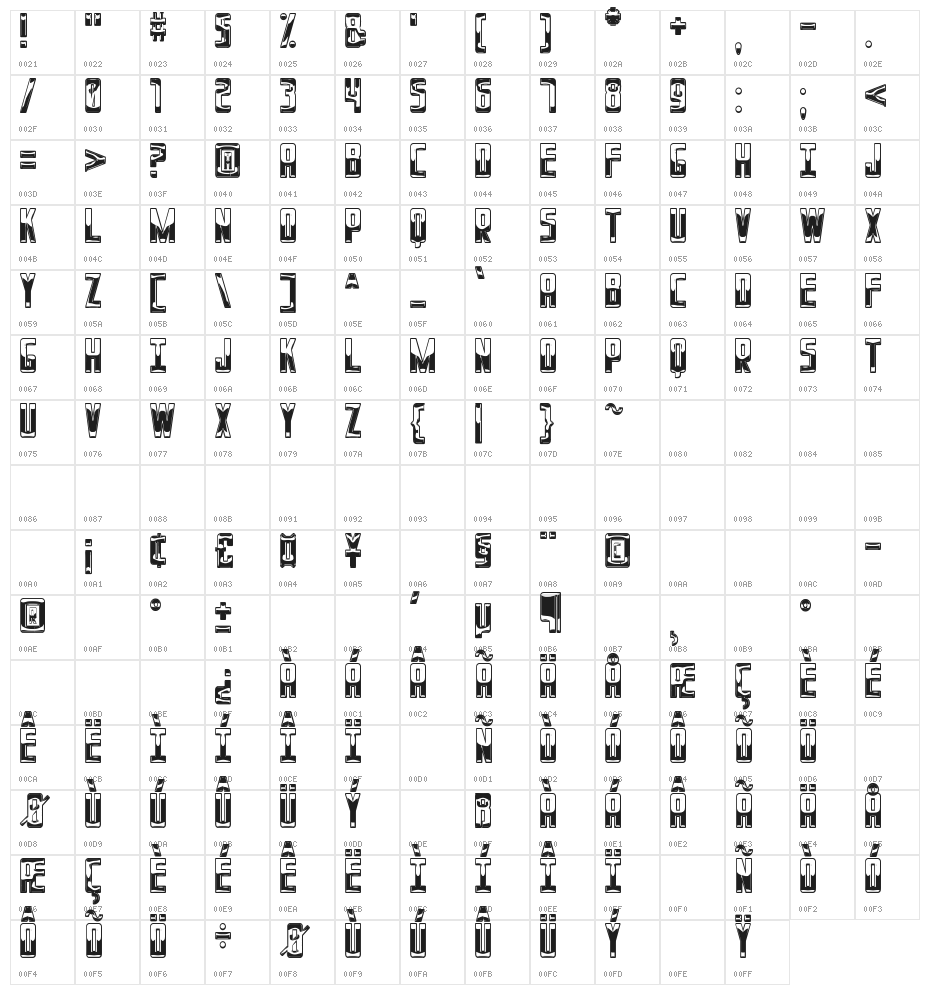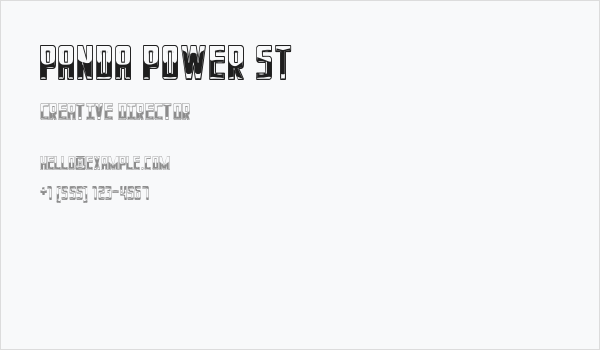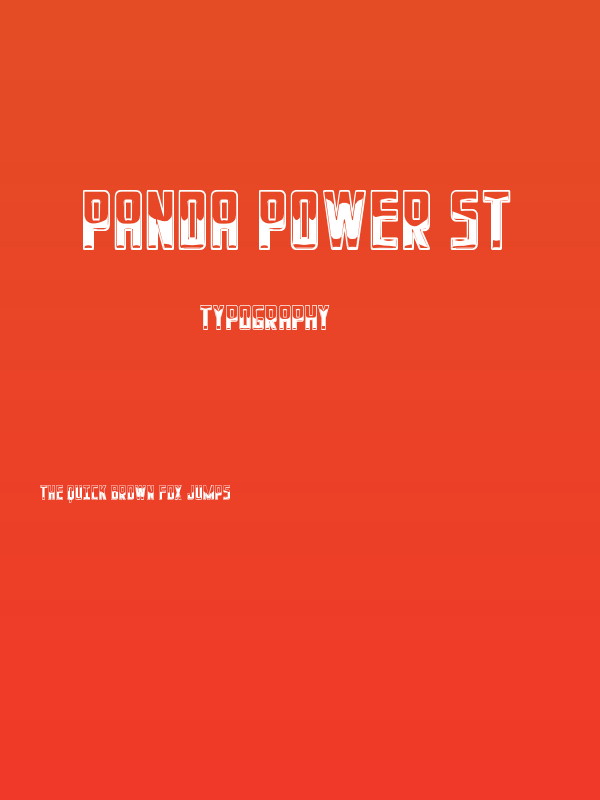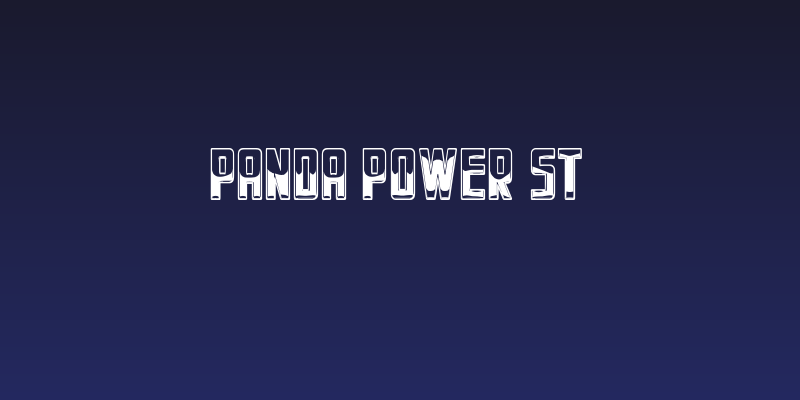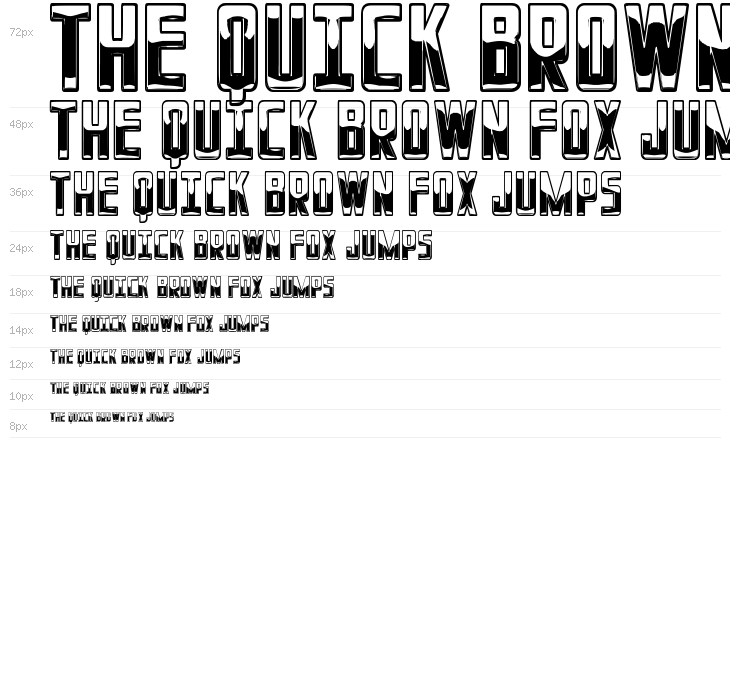
Panda Power St Font
Panda Power St Description
This font features a bold, three-dimensional style with a strong presence. Each character is designed with a shadow effect that gives a sense of depth and dynamism. The uppercase and lowercase letters maintain a consistent geometric structure, while the numerals and special characters complement the overall aesthetic. The font's design is reminiscent of retro or vintage styles, yet it maintains a modern edge with its clean lines and sharp angles. The boldness of the characters makes it ideal for attention-grabbing headlines or logos.
| Overall Style | Retro, Modern |
| Proposed Projects | Ideal for use in posters, logos, branding materials, and any project requiring a strong visual impact. |